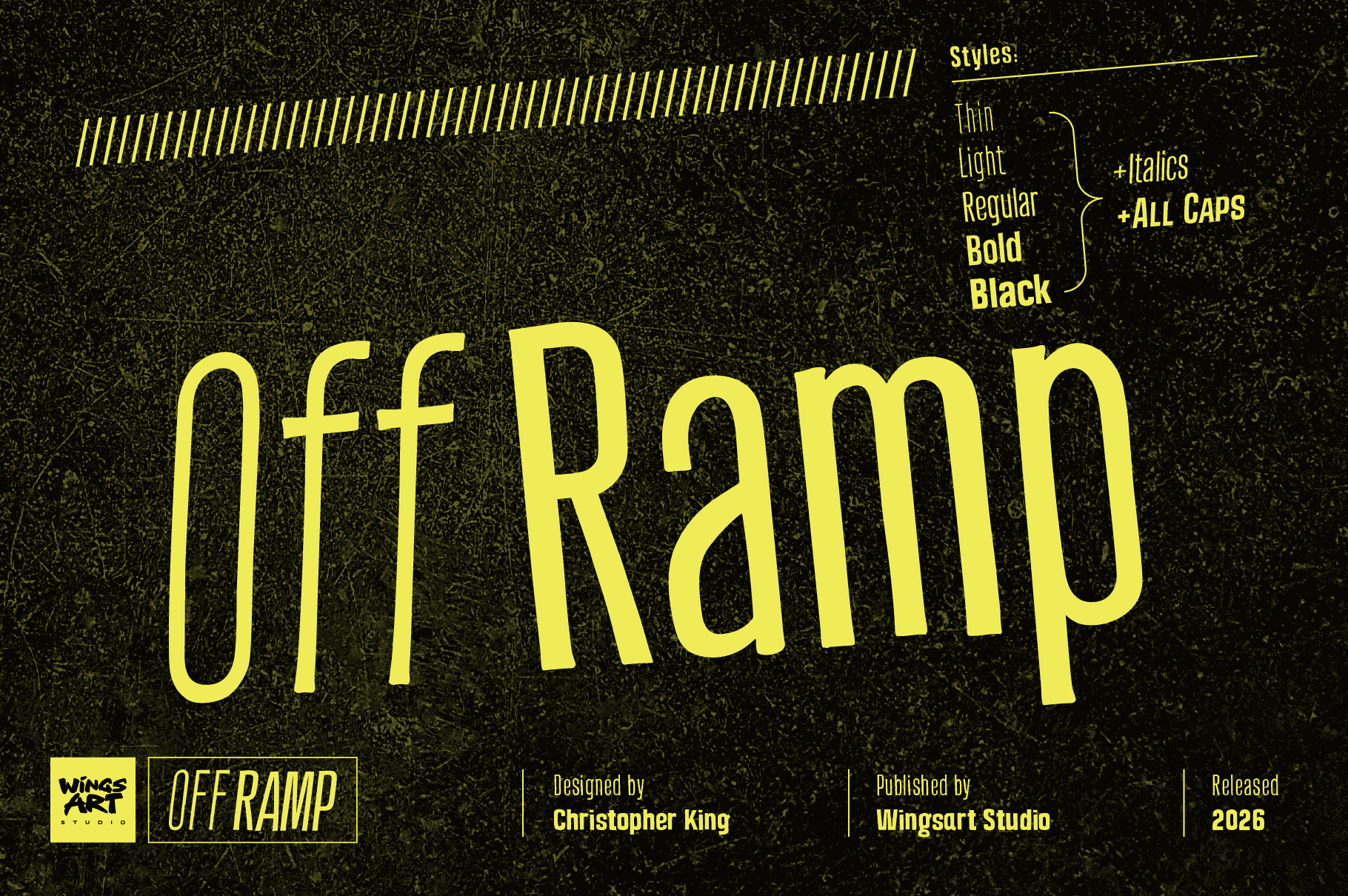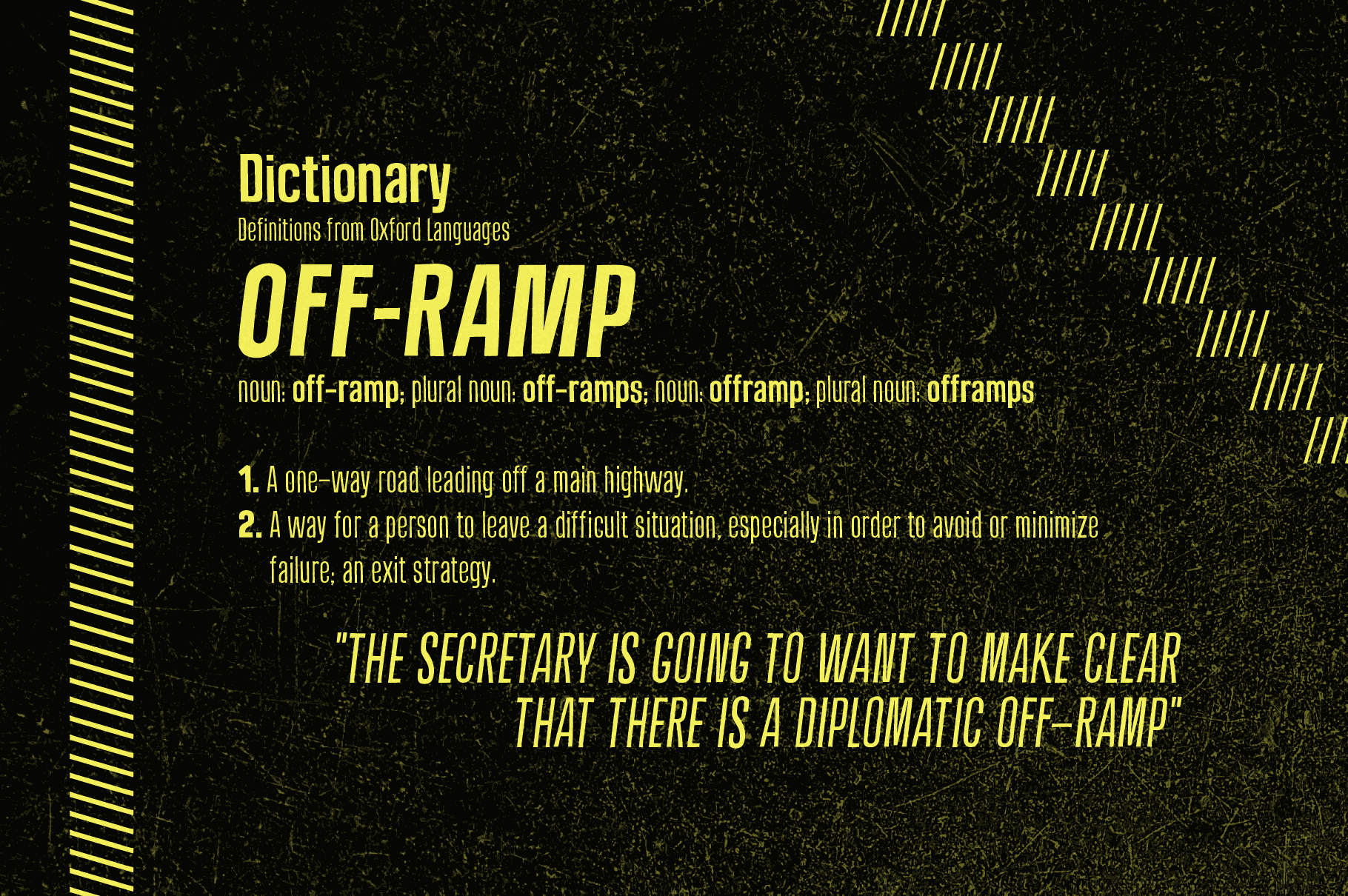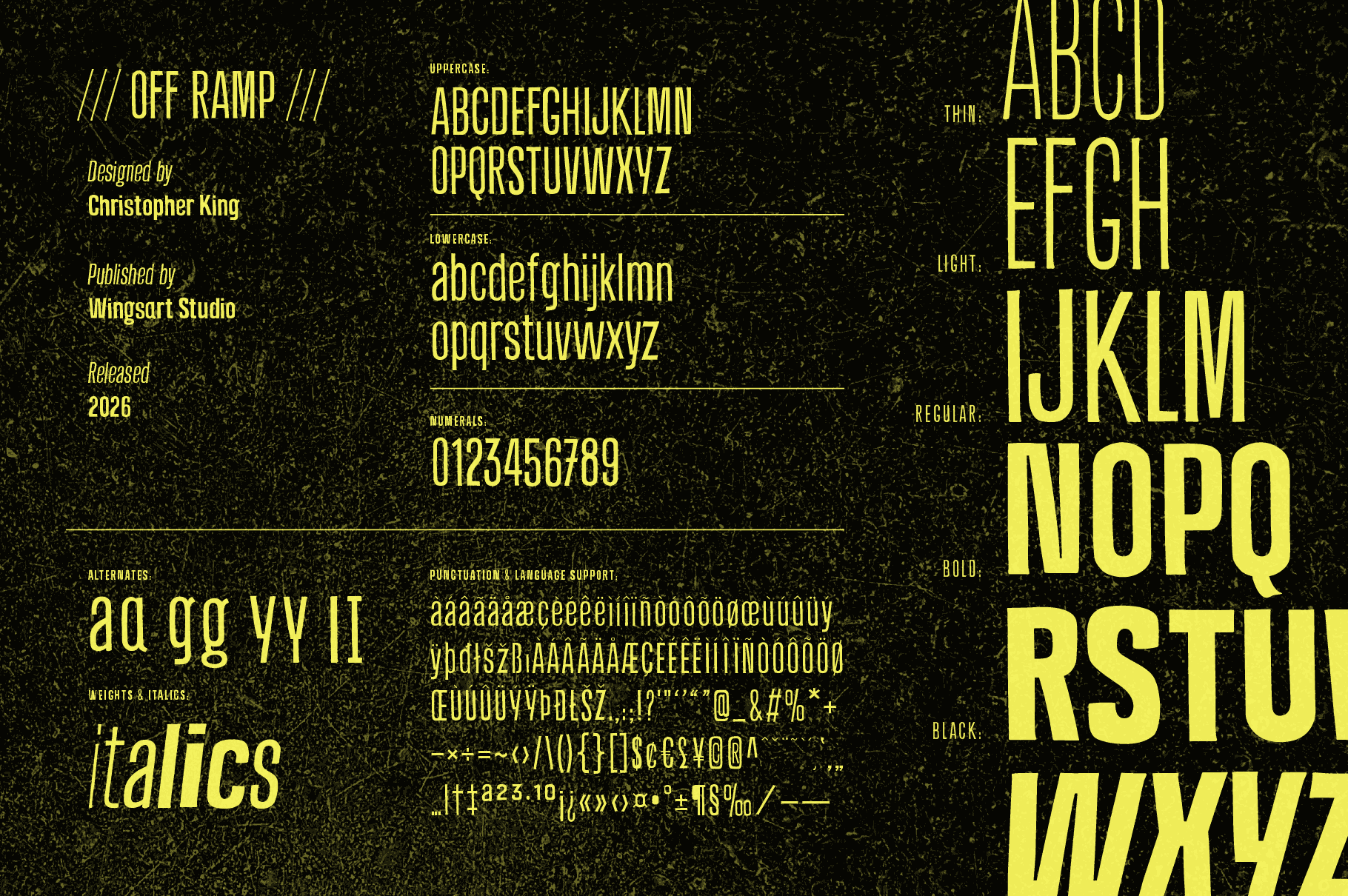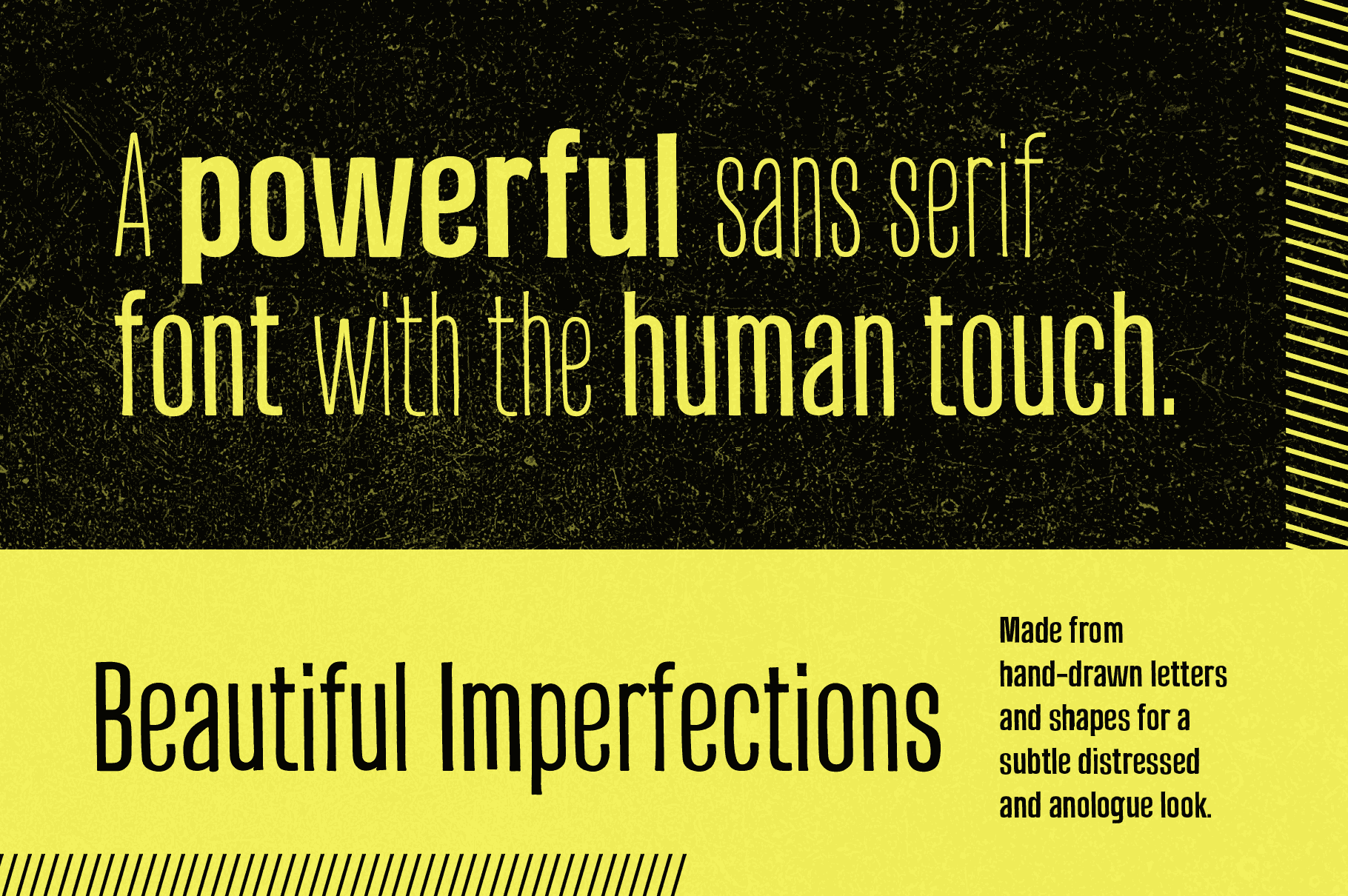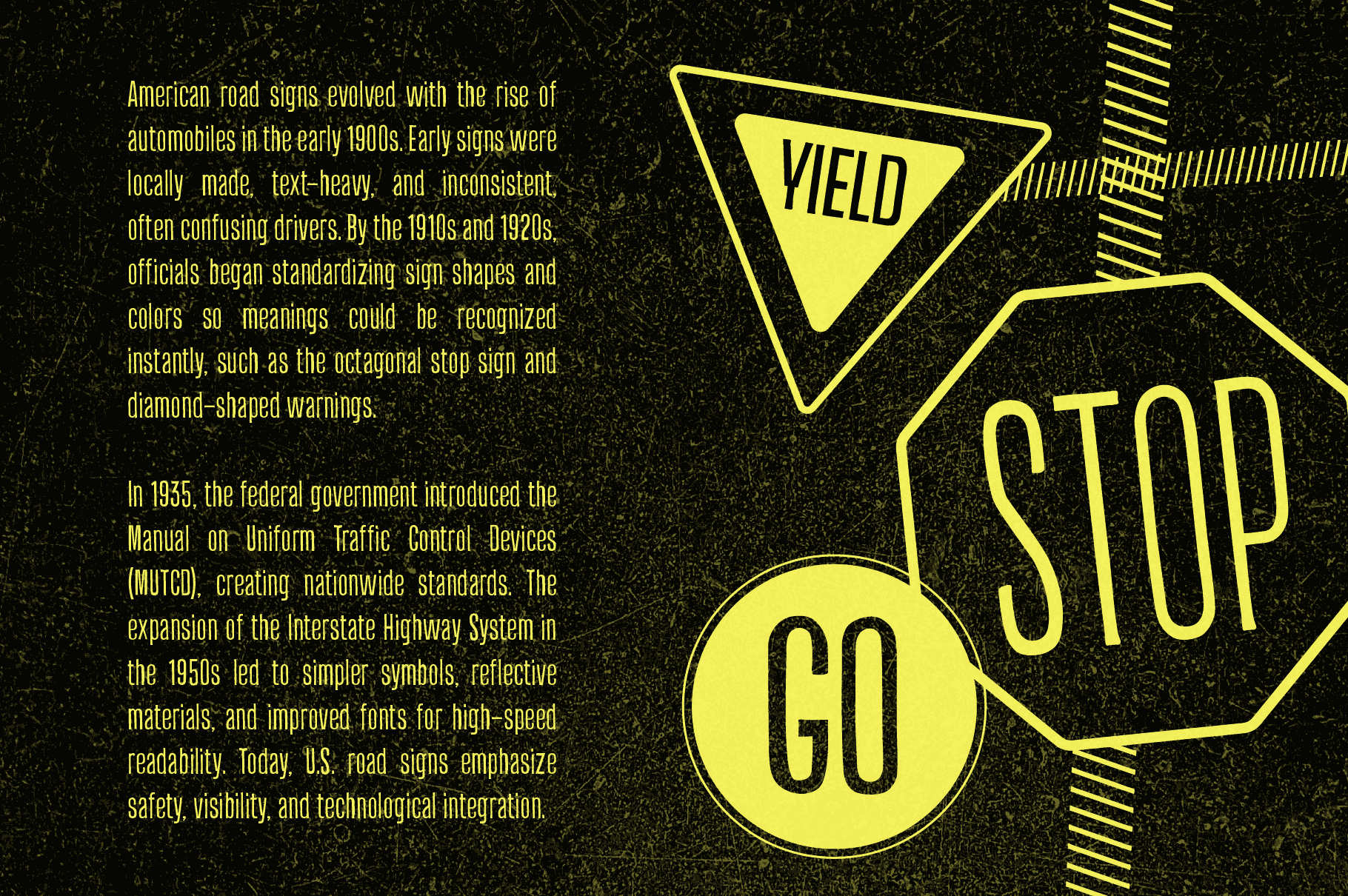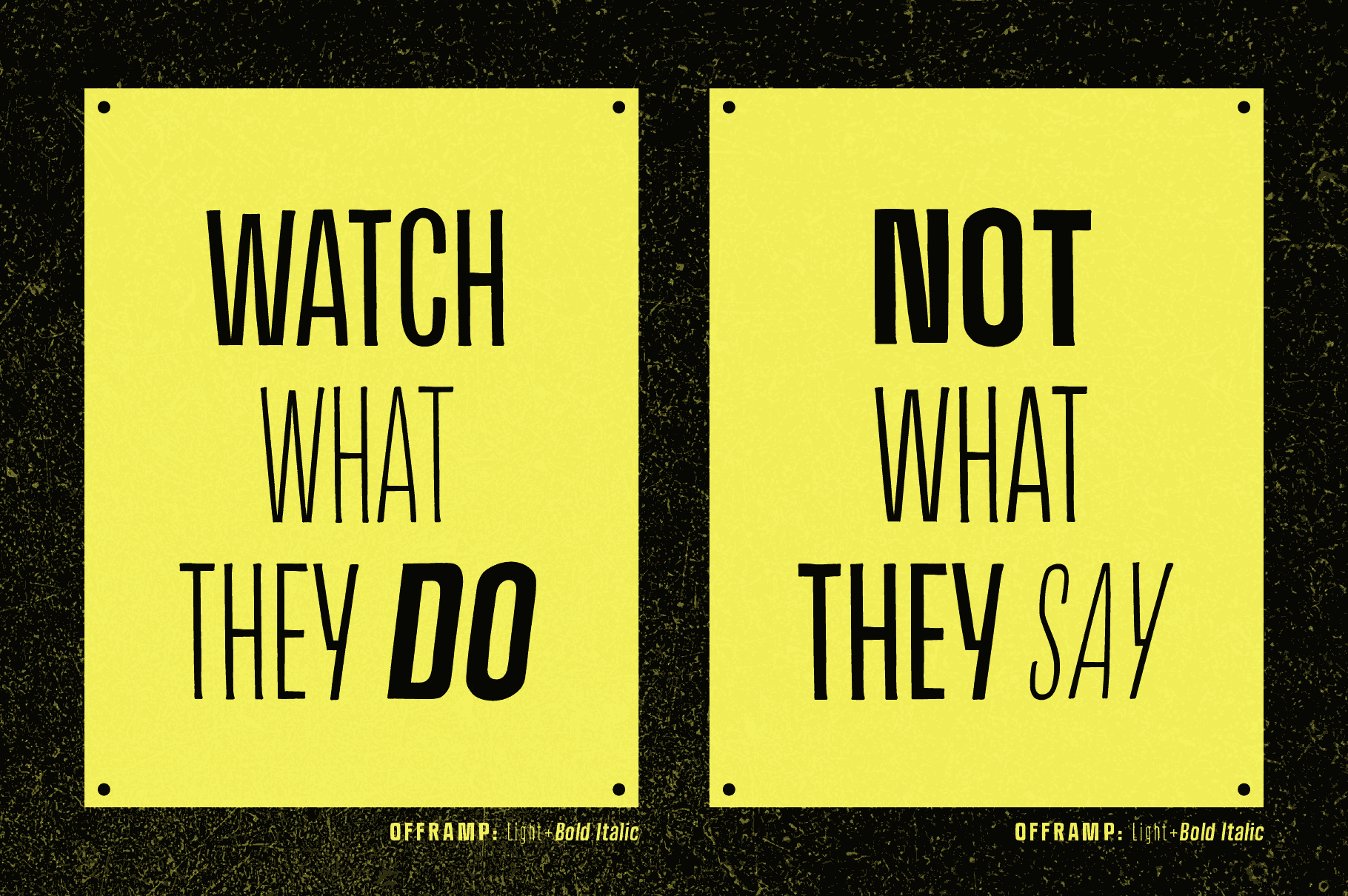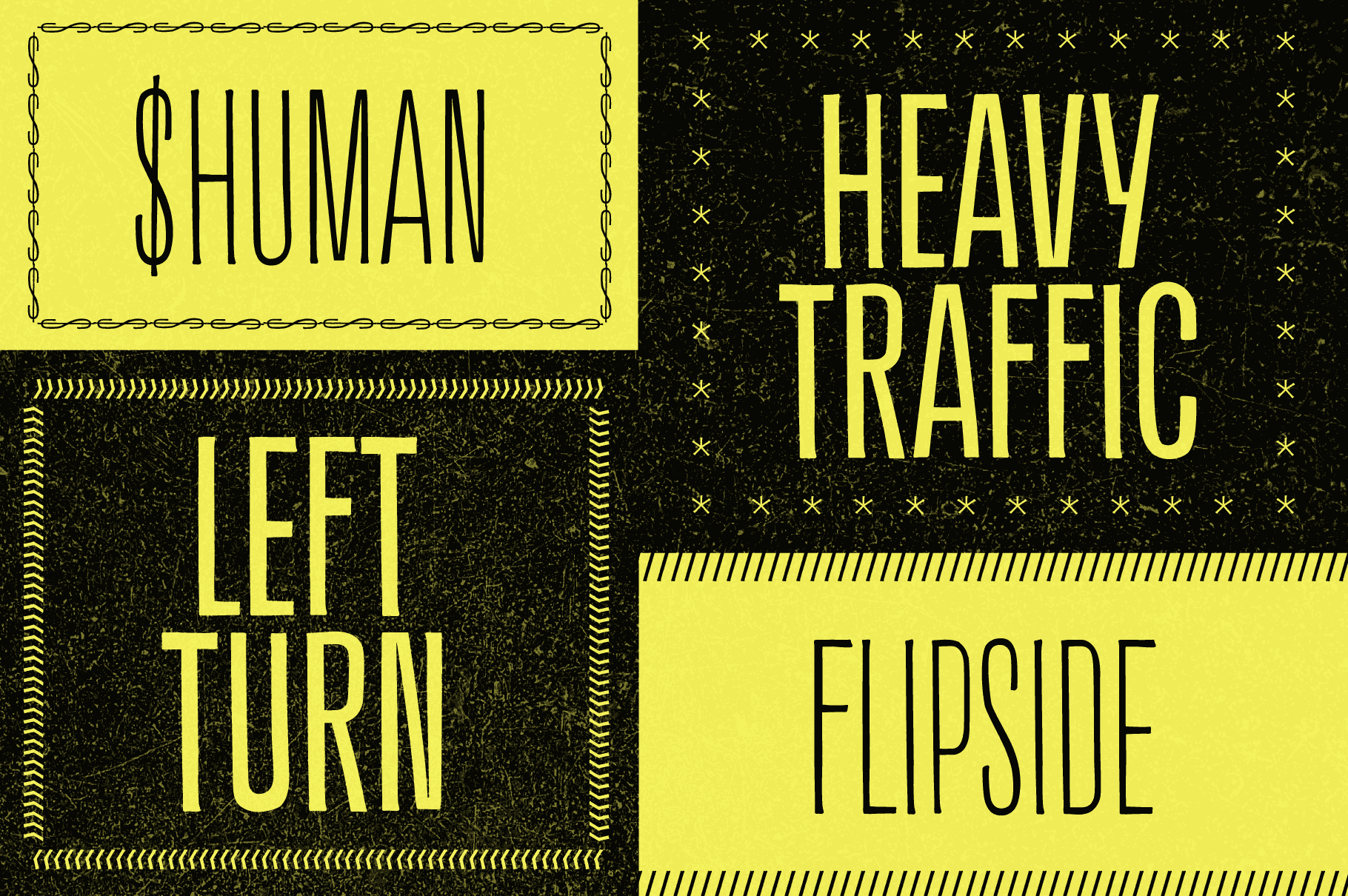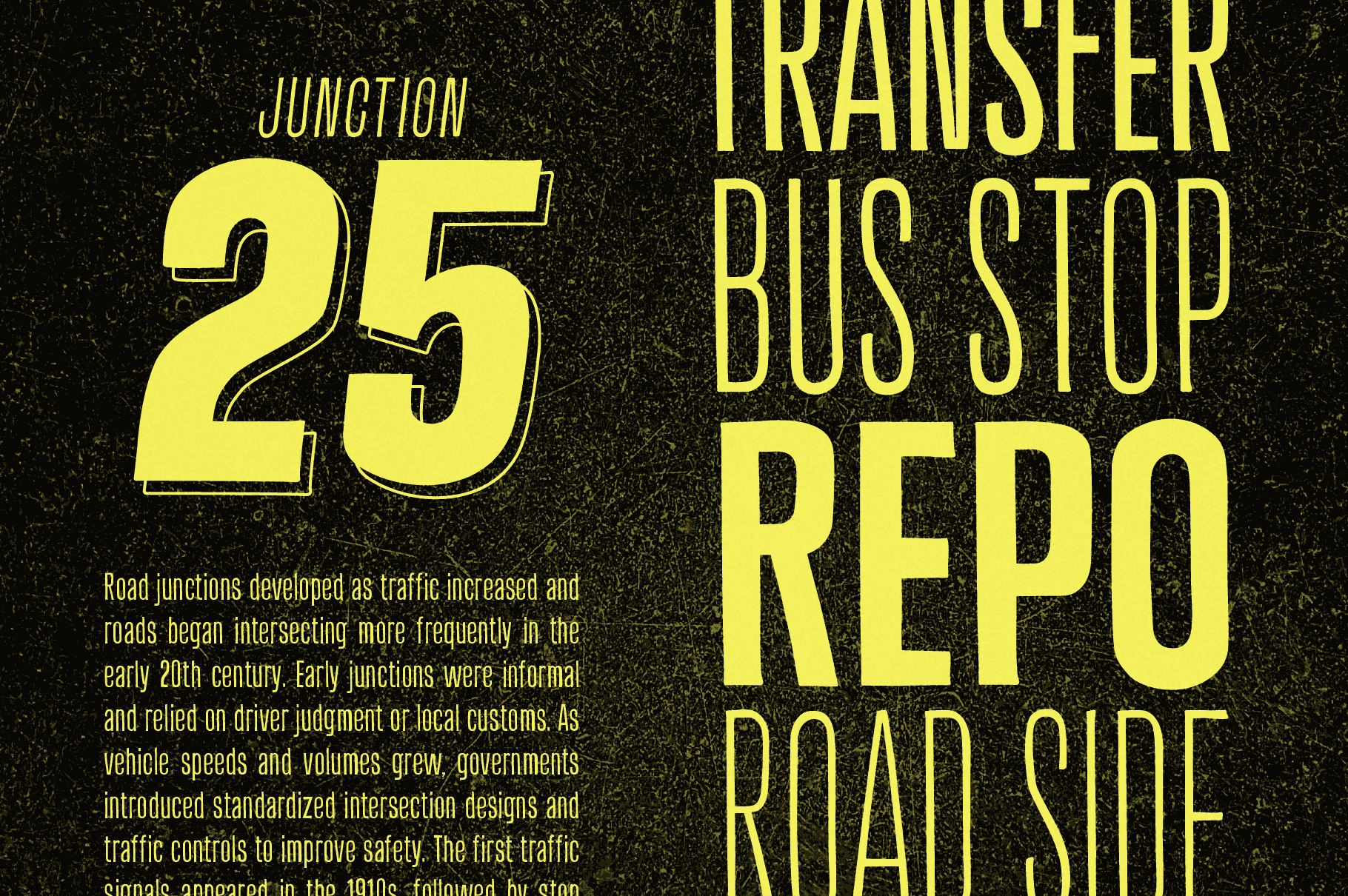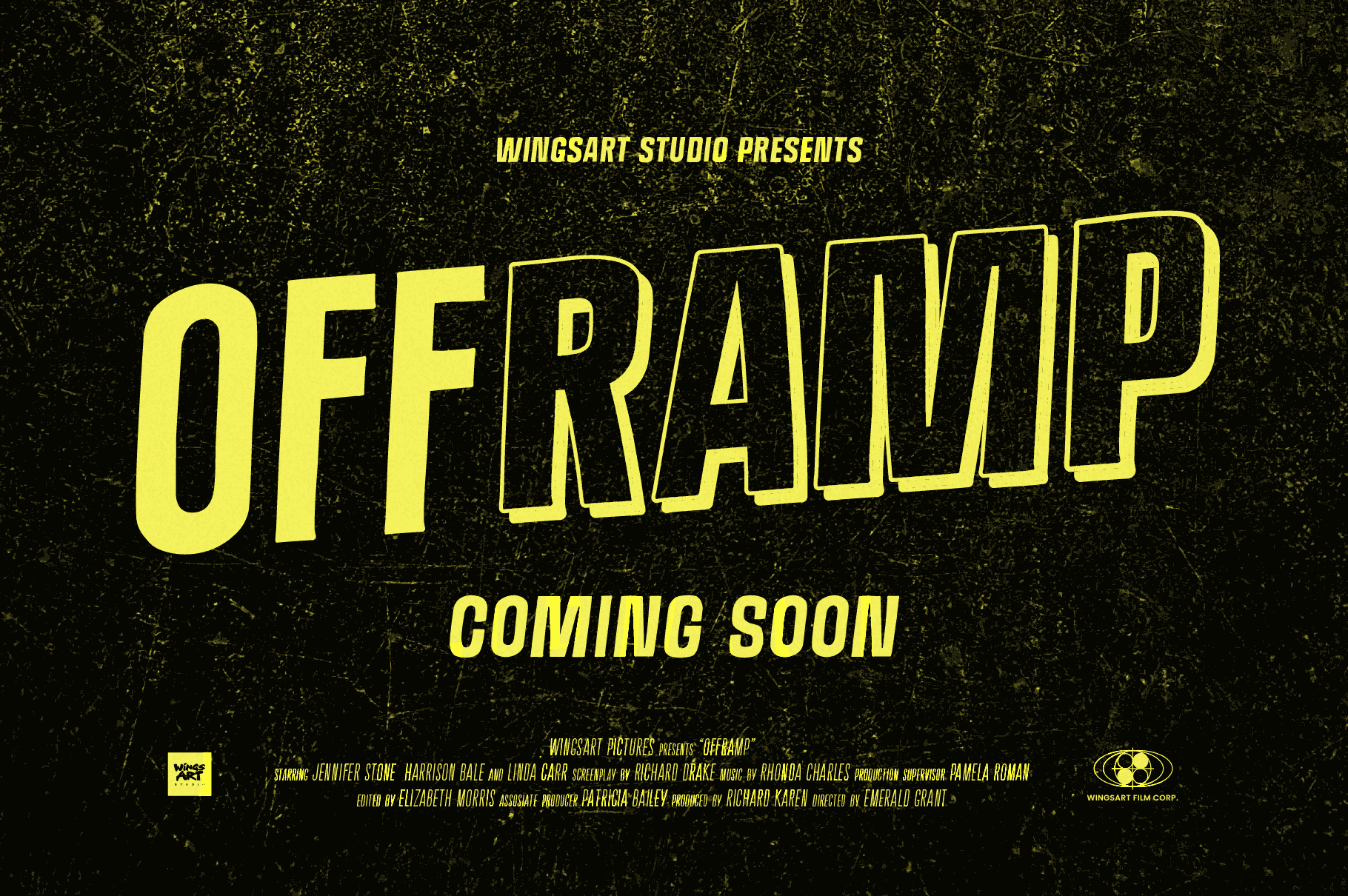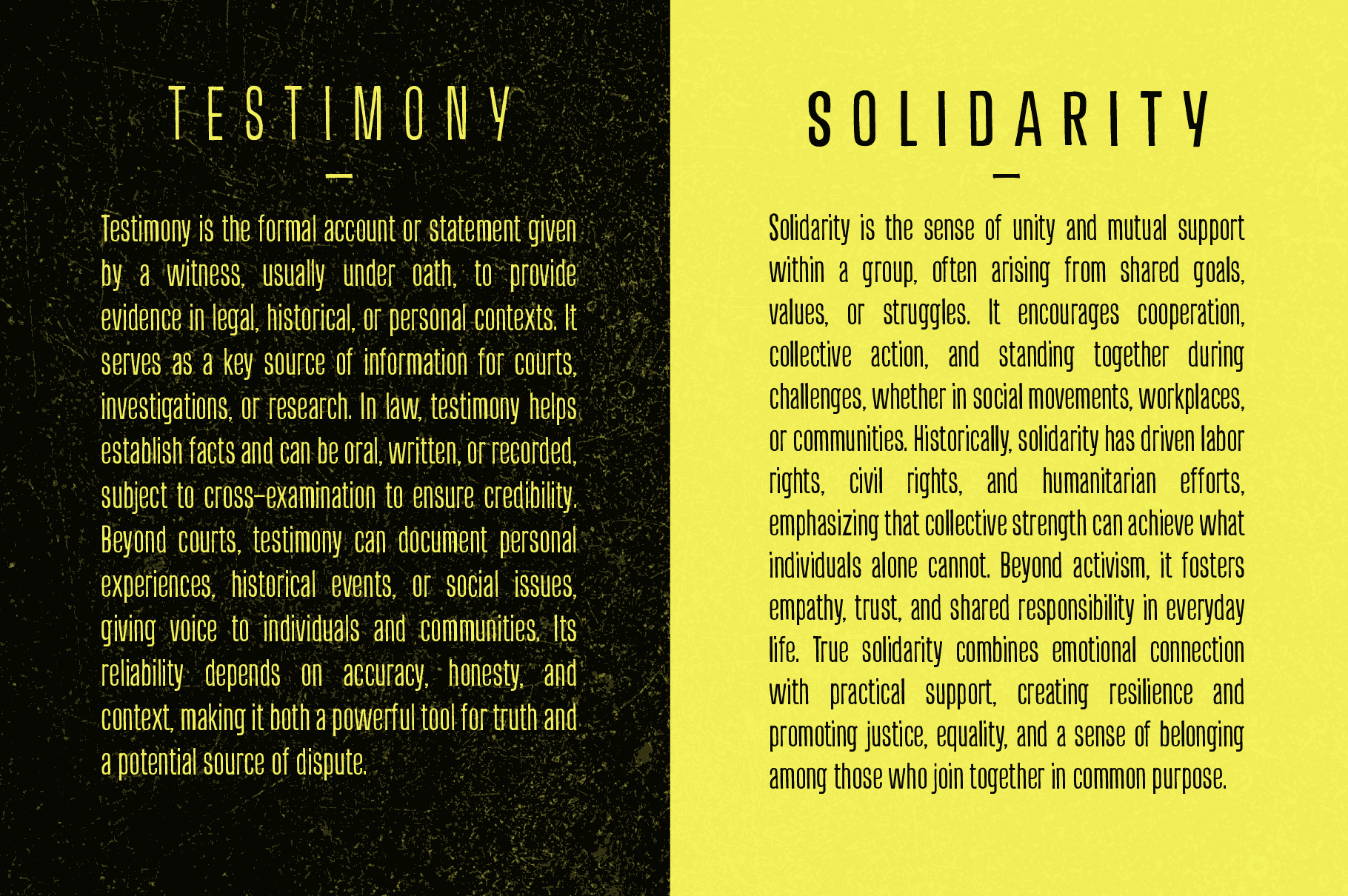
Off Ramp – An Industrial Sans-Serif Font
Off Ramp is a tall sans-serif font family in five weights, inspired by the workman-like lettering of the road. It references the everyday drive-by messaging we often take for granted, such as painted letters at bus stops, diversion signs warning of heavy traffic, and directions sprayed directly onto asphalt.
An Industrial Sans-Serif Font Inspired by Roadside Lettering
A hand-drawn compressed sans-serif with powerful impact.
Off Ramp is a tall sans-serif font family in five weights, inspired by the workman-like lettering of the road.
It references the everyday drive-by messaging we often take for granted, such as painted letters at bus stops, diversion signs warning of heavy traffic, and directions sprayed directly onto asphalt. With a subtly weathered look, this font family takes industrial legibility and adds a human touch, resulting in a uniquely confident, urban feel.
Offering a range of weights from Thin to Black, Off Ramp is a versatile family that feels equally at home in headers and body text, with a tall framework is particularly well suited to compressed spaces. The family includes a complete uppercase and lowercase alphabet, numerals, punctuation, symbols, and multilingual support.
All weights are also available in Italic and All Caps variants, providing expanded versatility and creative options. A selection of alternative stylistic characters is included, allowing you to customise your work even further.
From editorials to film credits and impactful political posters, Off Ramp’s slightly rough edges (derived solely from hand-drawn elements) give your project a beautifully imperfect take on the traditional sans-serif, with a powerful yet approachable stance. When cold digital precision can’t connect with your audience, take Off Ramp for a spin.
• Thin
• Light
• Regular
• Bold
• Black
• All Caps and Italic versions for all styles